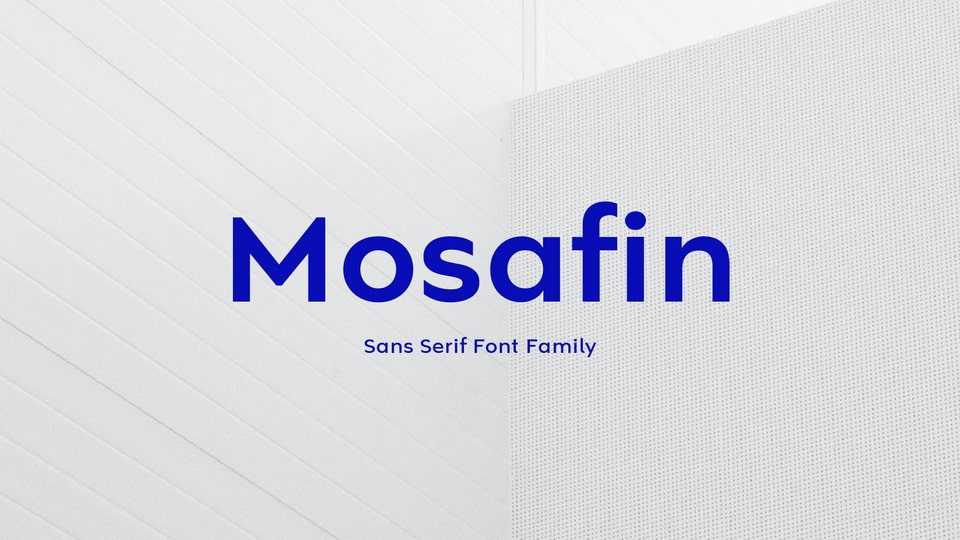
Download The Mosafin font, a sans-serif typeface that has a modern and elegant design. Mosafon font is easy to read and very suitable for various graphic design purposes.
Designer: Yukita Creative